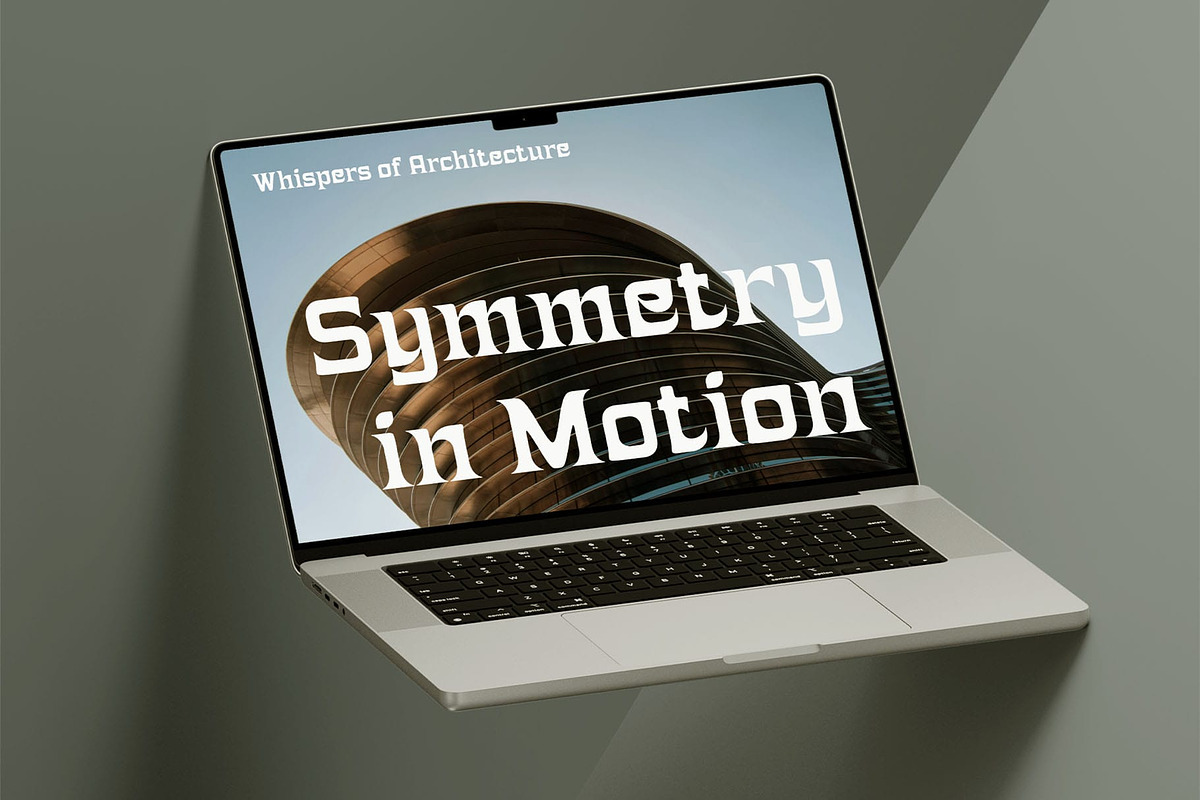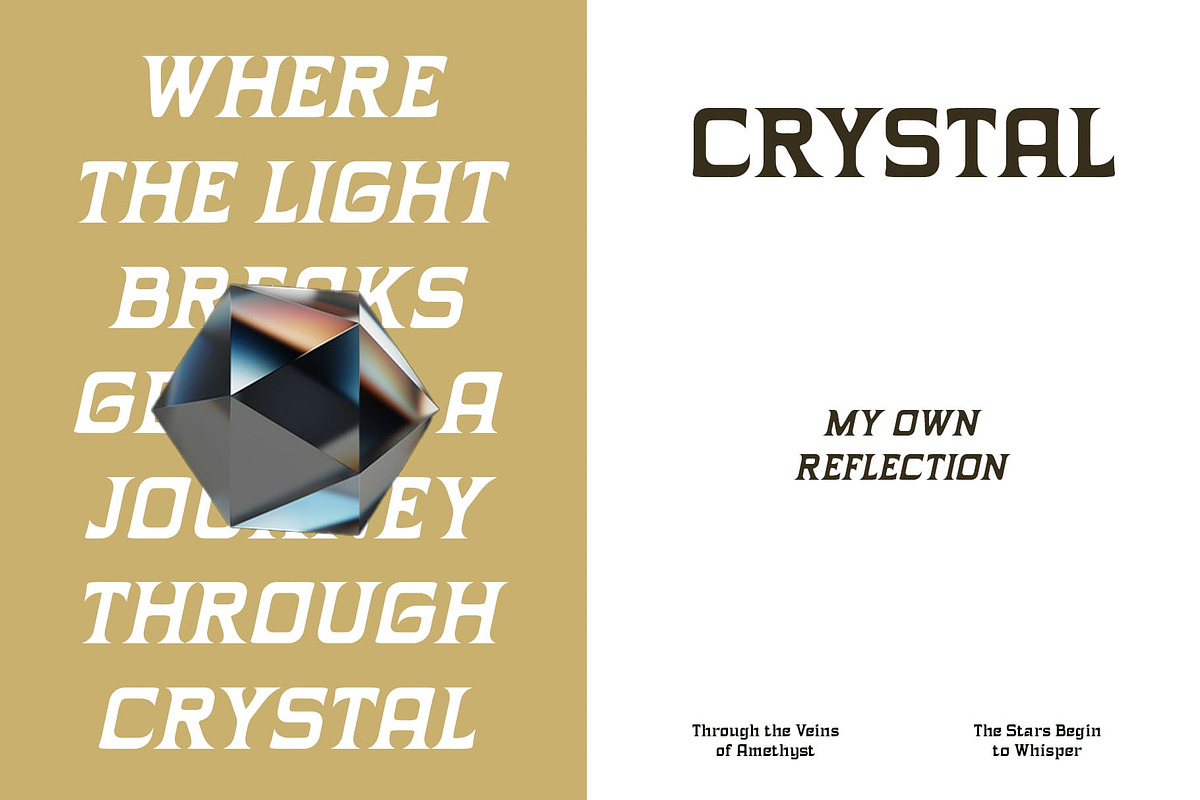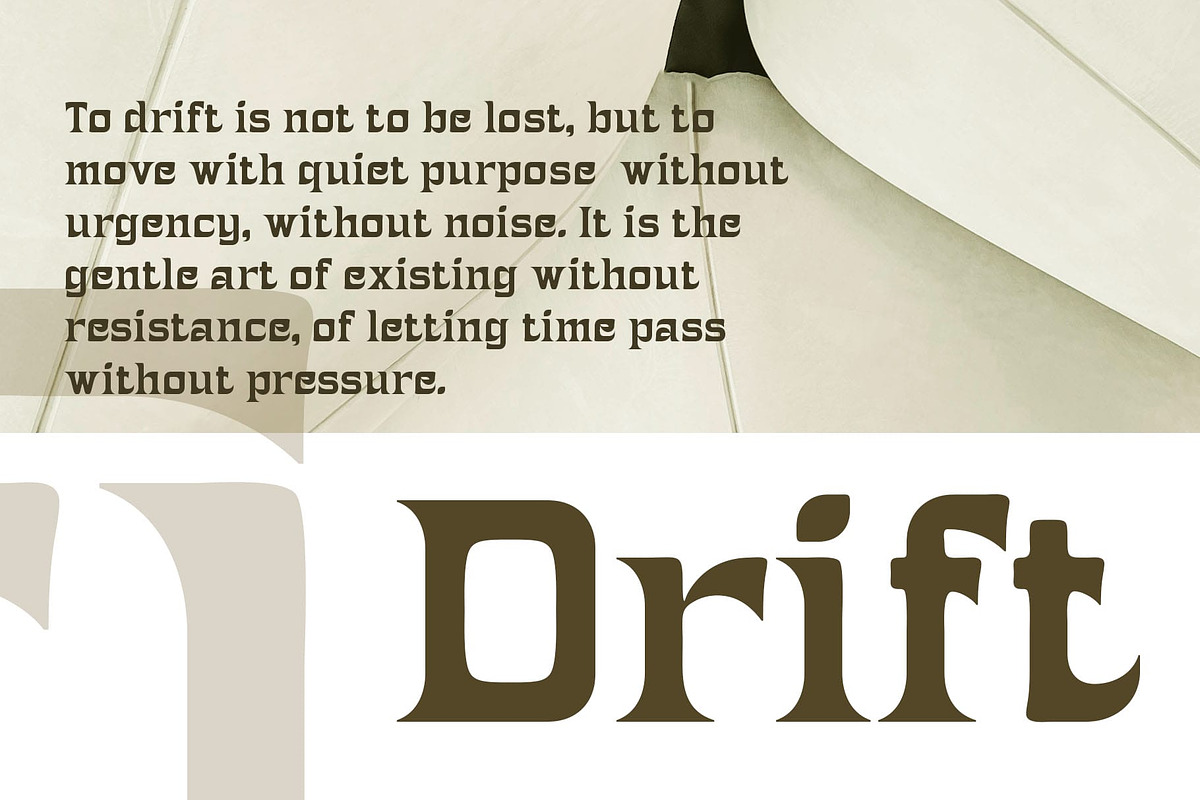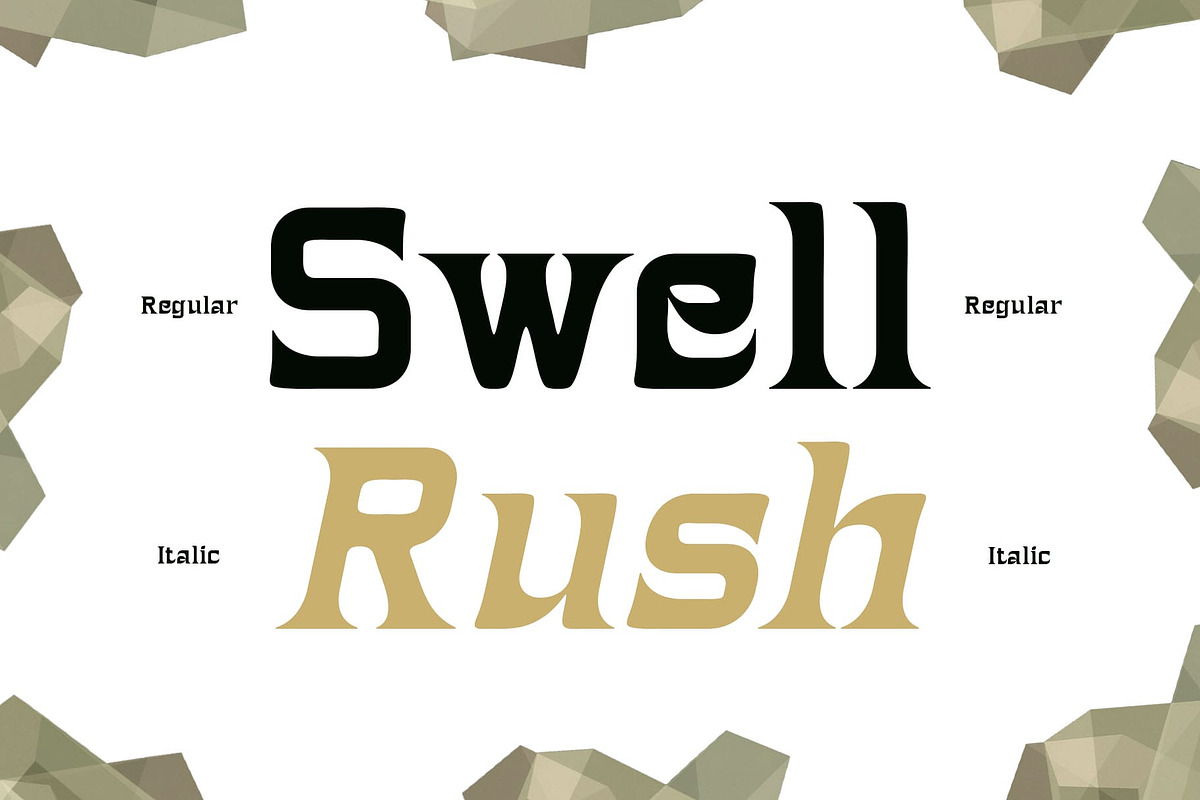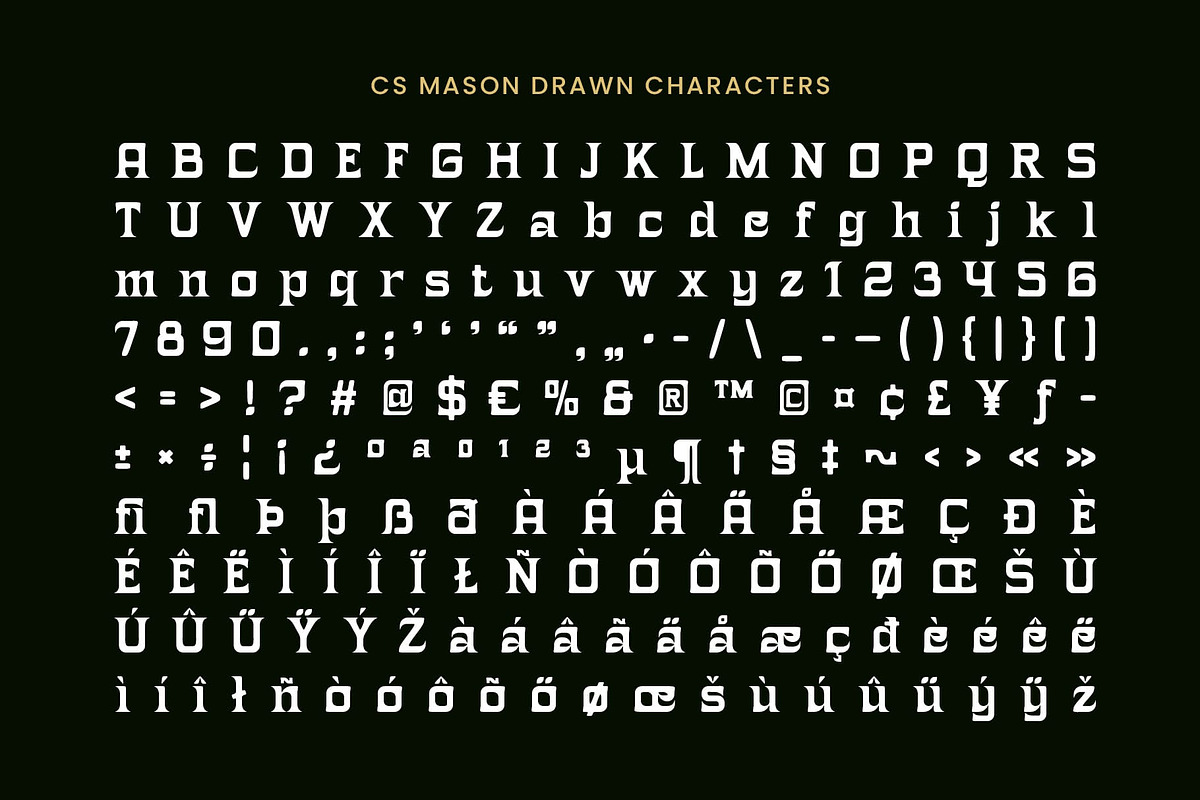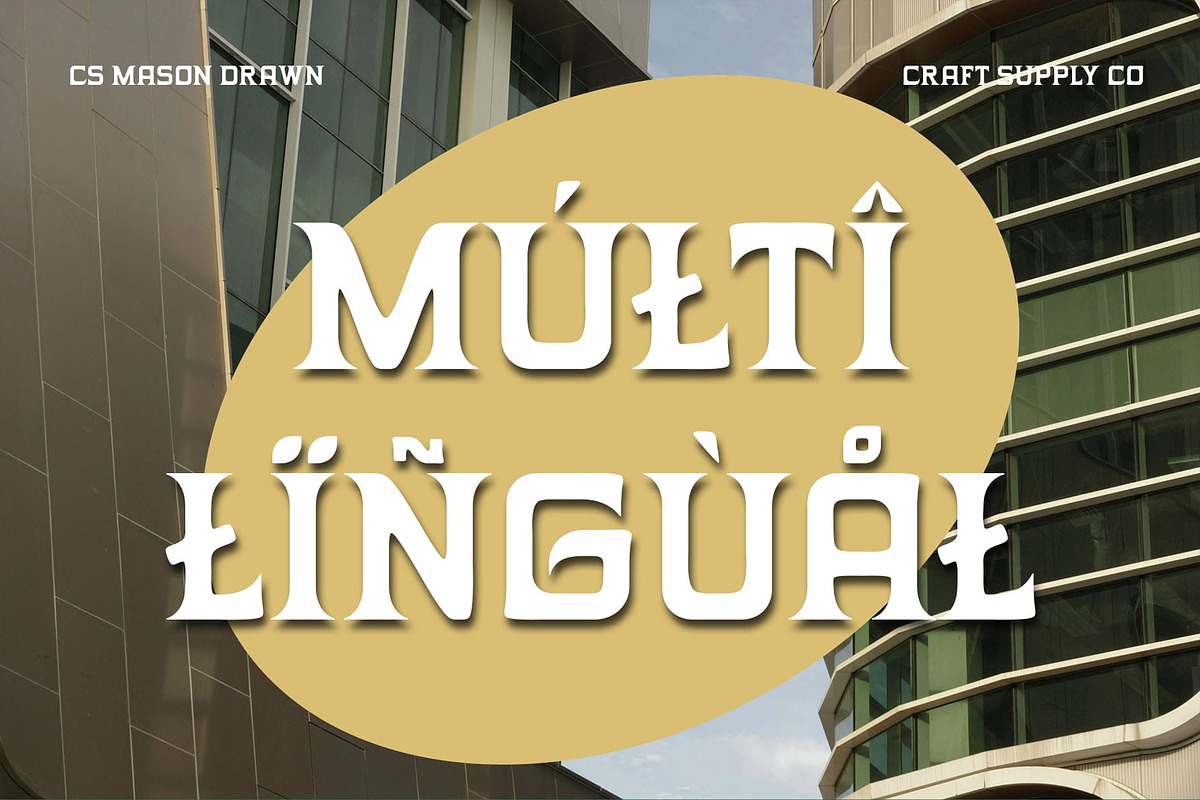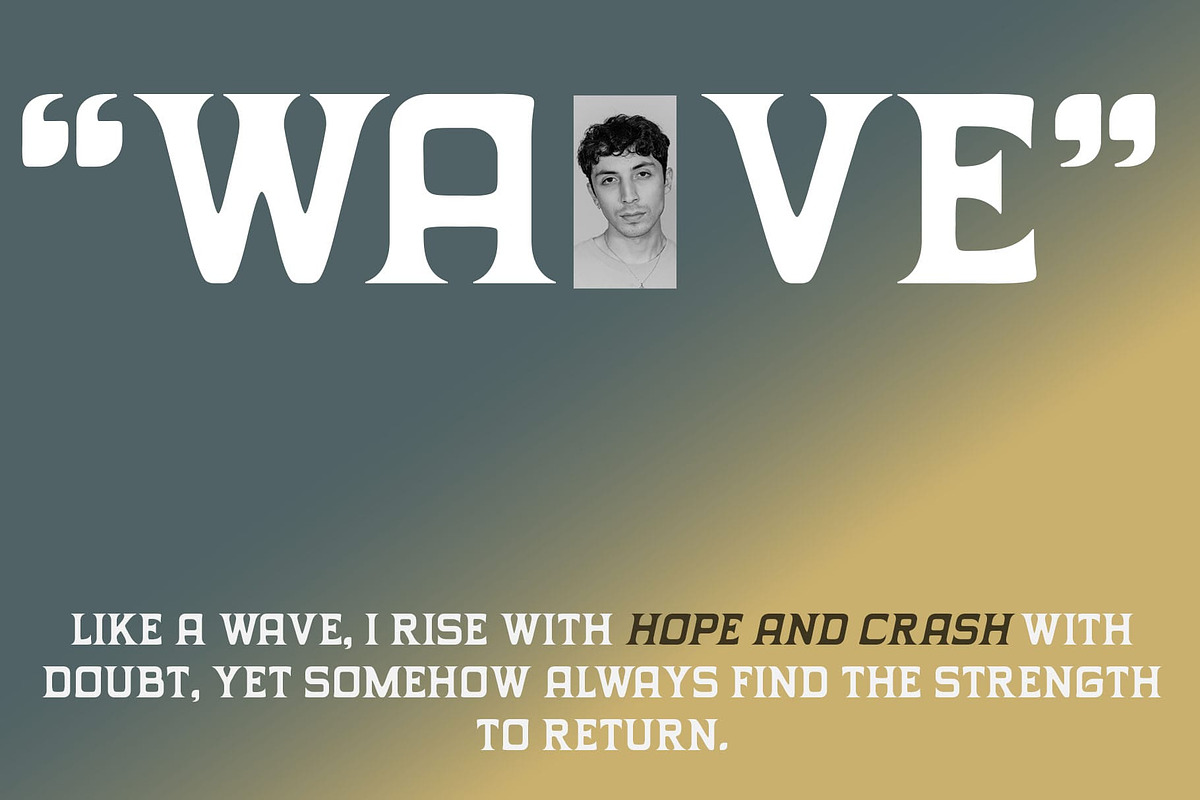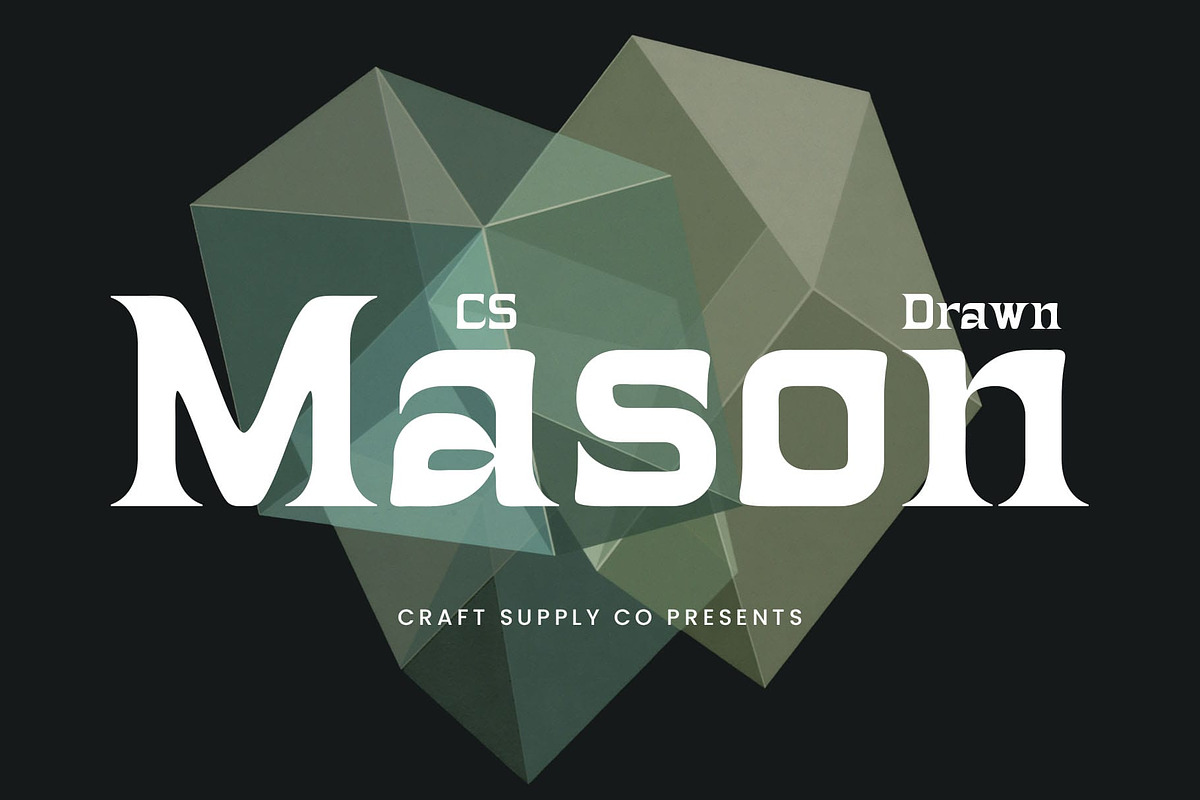
CS Mason Drawn
CS Mason Drawn Font: Where Techno Precision Meets Artistic Texture
Modern Display Serif with Techno Aesthetic CS Mason Drawn is a modern display serif font that merges techno-inspired design with contemporary elegance. Featuring sharp, geometric letterforms, it captures the spirit of digital innovation while maintaining a structured, high-impact presence ideal for modern design needs.
Hand-Drawn Effect for Organic Expression What sets CS Mason Drawn apart is its distinctive hand-drawn texture. This subtle yet expressive detail adds depth and character, balancing the rigid structure with a warm, handcrafted quality. The result is a font that feels both futuristic and human.
Perfect for Futuristic and Digital Branding Designed for the forward-thinker, CS Mason Drawn is ideal for branding, visual identities, and digital designs that aim to stand out. Its bold structure and textured finish make it perfect for tech products, creative studios, experimental layouts, and futuristic campaigns.
Versatile and Visually Striking CS Mason Drawn adapts seamlessly to various creative applications—from digital posters and immersive interfaces to branding and editorial titles. Whether you’re crafting a sleek digital experience or an expressive visual statement, this font offers a unique blend of bold form and artistic nuance.